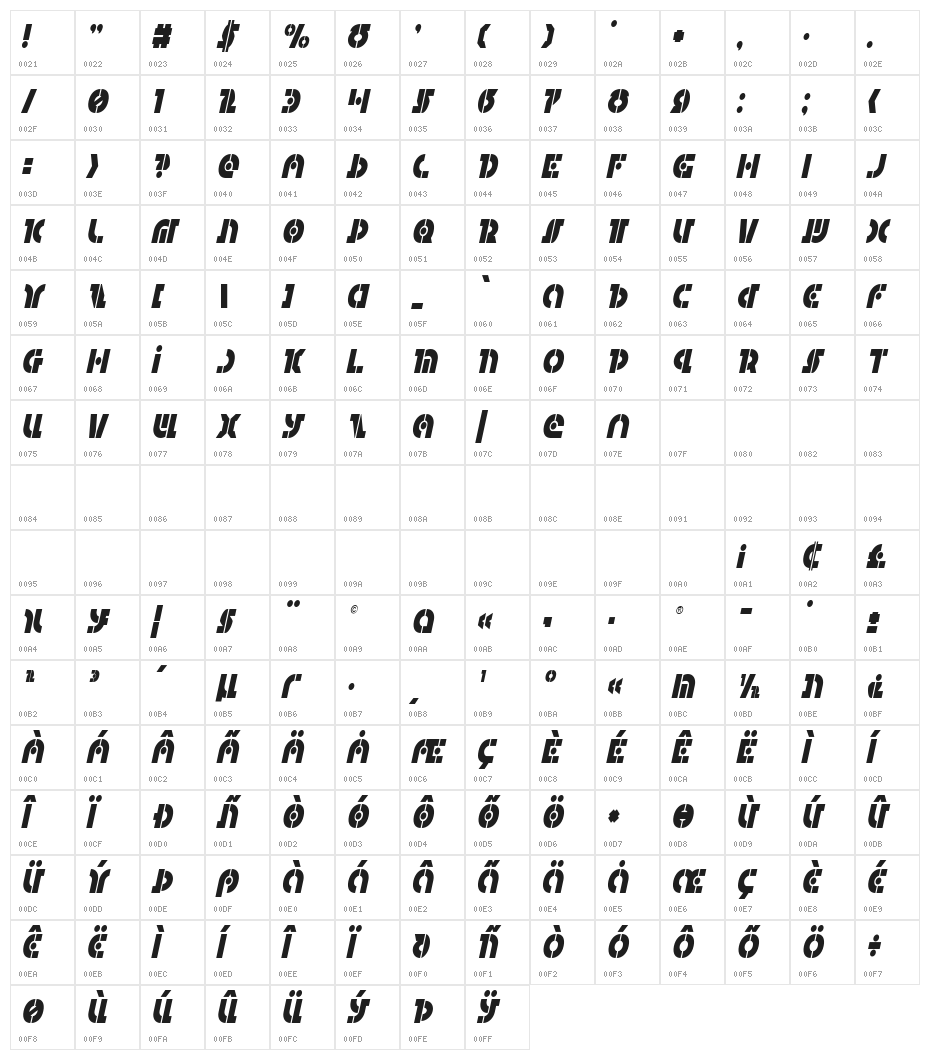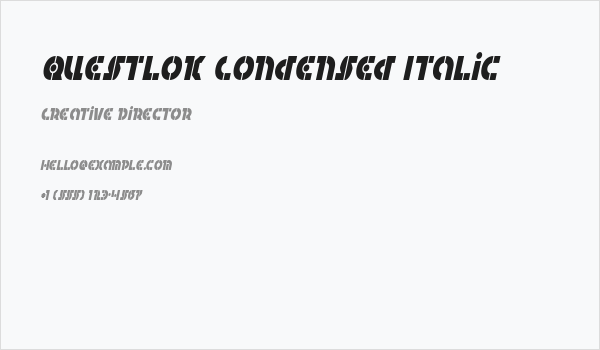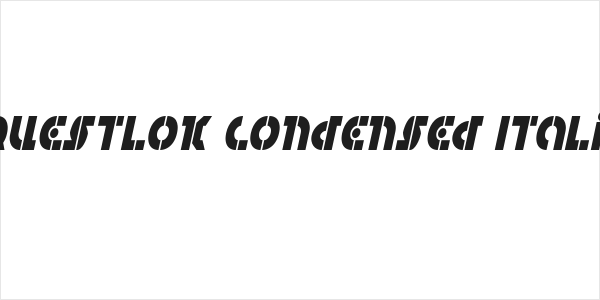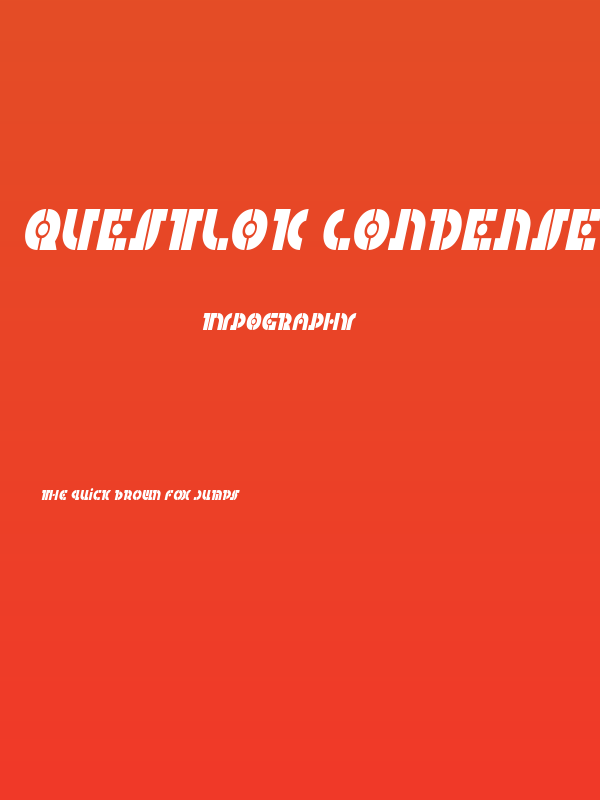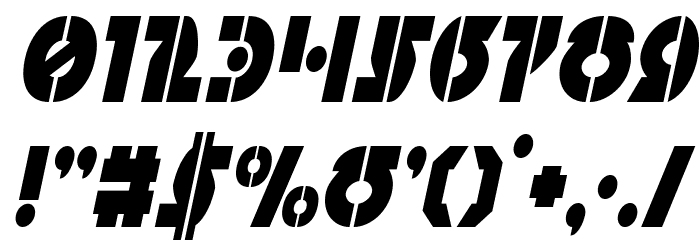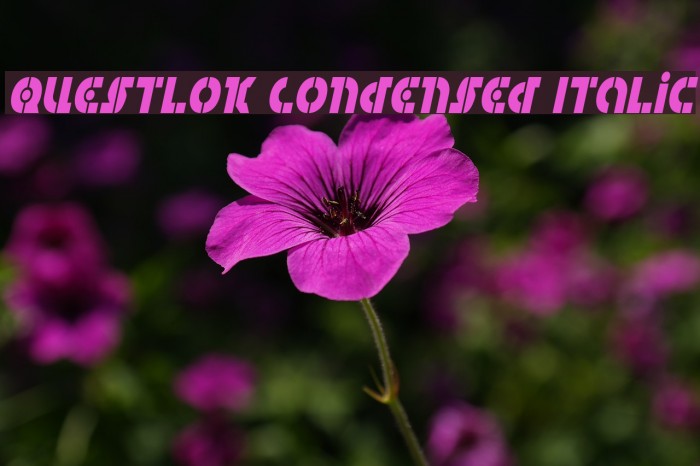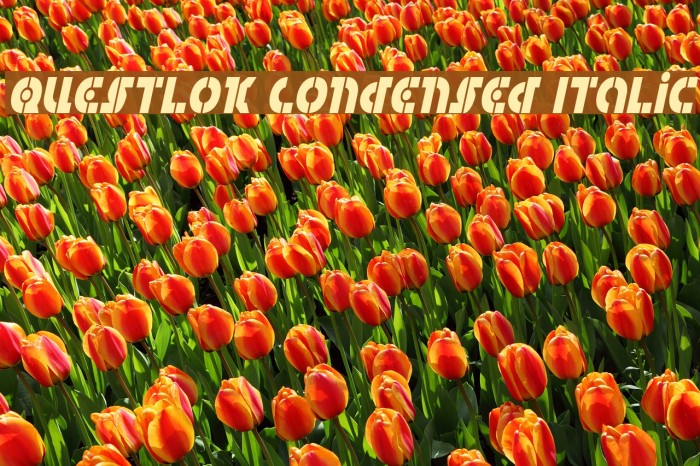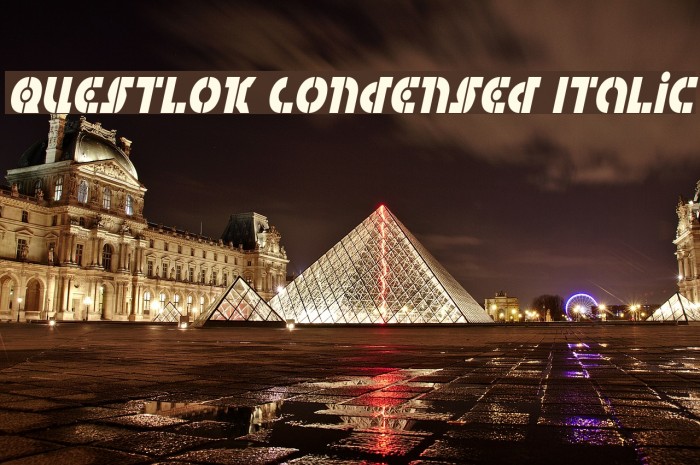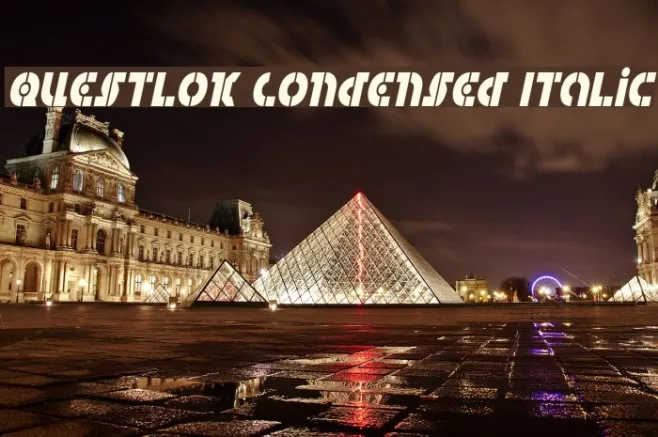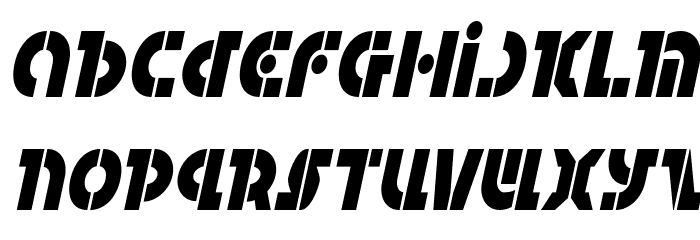
Questlok Condensed Italic Font
Questlok Condensed Italic Description
This font features a bold, geometric design with a distinct stencil-like appearance. The characters are condensed and italicized, giving a dynamic and modern feel. The use of sharp angles and cut-out sections within each letterform creates a unique visual effect that stands out. The uppercase and lowercase letters maintain a consistent style, while the numbers and special characters complement the overall aesthetic. This font is ideal for projects that require a strong, impactful look.
| Proposed Projects | Ideal for branding, posters, headlines, and any design project that requires a modern and striking appearance. |